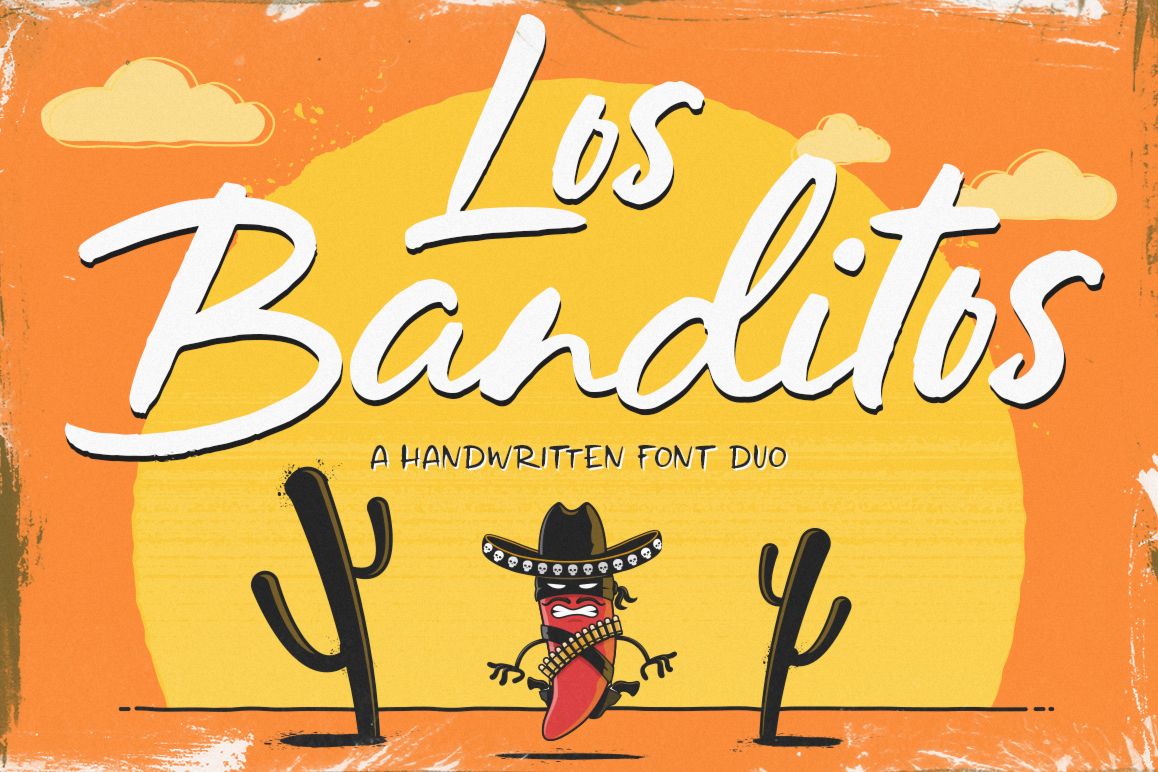
Los Banditos Font Duo
Los Banditos Font Duo is hand brushed font with multilingual support. Is ideal for t-shirts, magazines, phone covers, social media, restaurant menus, greeting cards, invitations, weddings, headers and many more.This brush font comes with a complete set of lowercase and uppercase characters, a large range of punctuation ligatures, numerals and and multilingual support.
• Los Banditos Script is a set of glyphs, Upper and Lowercase with ligatures, numerals and lot of punctuation glyphs and 2 alternates for each character.
• Los Banditos Script Alt1 The original font, with an alternate set of uppercase and lowercase letters changed for the standard characters.
• Los Banditos Script Alt2 The original font, with an alternate set of uppercase and lowercase letters changed for the standard characters.
• Los Banditos Sans a set of glyphs, Upper and Lowercase with ligatures, numerals and lot of punctuation glyphs with multilingual support.